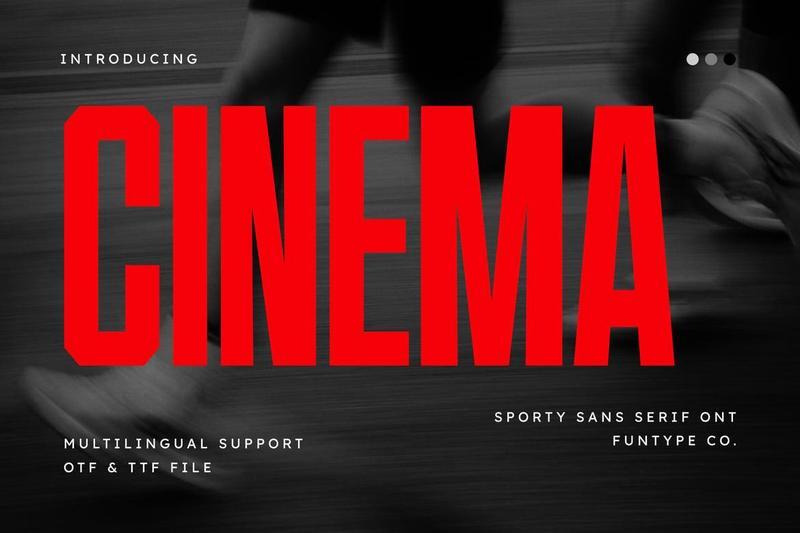
**Cinema Modern Sporty Condensed Sans Serif Font**
**Cinema** is a bold, high-impact, and modern sporty condensed sans serif font, meticulously engineered to bring an energetic structural presence, kinetic velocity, and geometric precision to contemporary display layouts. Built with a towering vertical profile, compact horizontal tracking, and sharp athletic angles, Cinema introduces a premium professional aesthetic that projects raw power, speed, and competitive authority.
This font family is the definitive choice for creative directors, multimedia producers, and digital media designers looking to implement a space-efficient, heavyweight typography identity for prominent text hierarchies. Whether you are developing high-energy sports branding, racing tournament graphics, automotive promos, cinematic action movie title sequences, fitness application interfaces, or prominent digital live-stream headers, Cinema stands out with supreme legibility and structural confidence.
**Main Features:**
– Modern Sporty Condensed Design: Optimized with a narrow horizontal profile for dense, space-saving, and high-impact title compositions.
– Towering Geometric Dimensions: Elongated vertical builds crafted to secure immediate audience attention.
– Multilingual Support: Fully loaded and prepared for cross-platform international marketing campaigns.
– Athletic & Action Aesthetic: Clean linear strokes with sharp octagonal cuts perfect for advanced digital infrastructure and sports media.
**Best Used For:**
Cinematic action movie titles, sports tournament promotions, fitness branding, automotive industry marketing materials, energy drink product packaging, electronic gaming headers, and large-scale web splash banners.